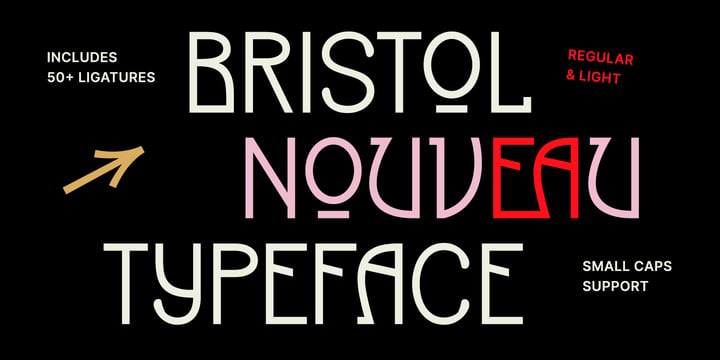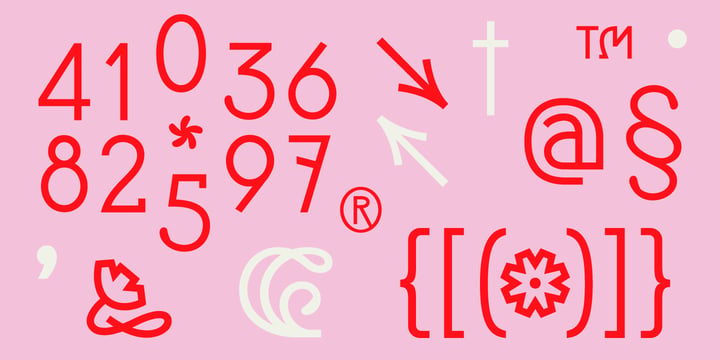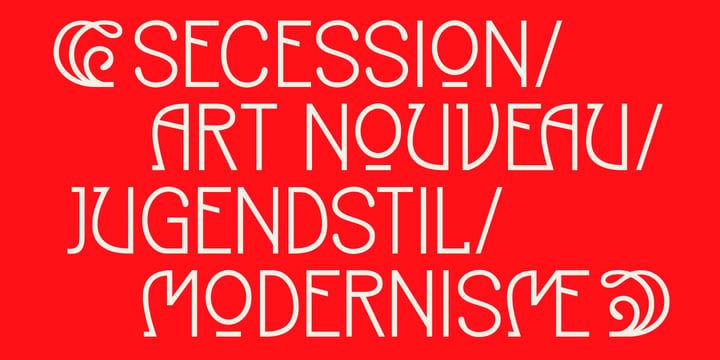
Anastasiia Oliinyk is a Ukrainian typeface designer specializing in Latin and Cyrillic scripts. She explores the expressive potential of type through advanced OpenType features. With a background in graphic design, Anastasiia seeks to evoke emotion through the perception of signs and symbols. At the same time, the rich Ukrainian typographic heritage inspires her to reinterpret letterforms and integrate them into global contexts.